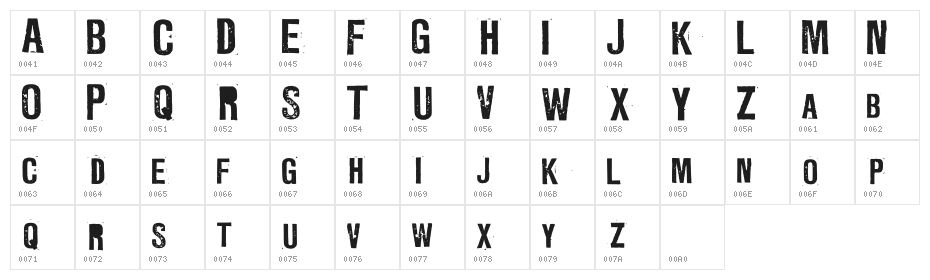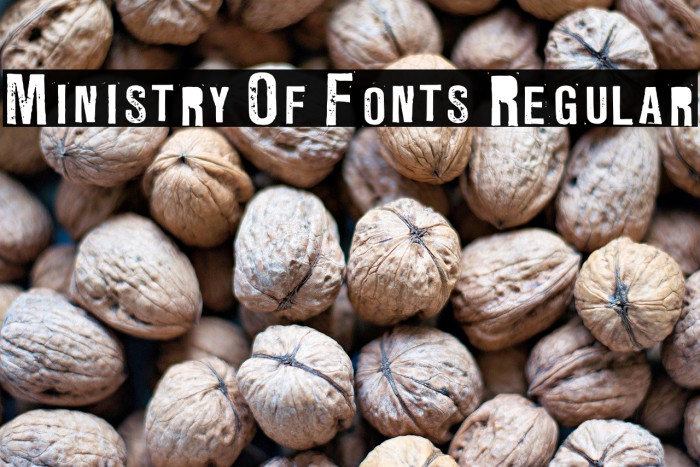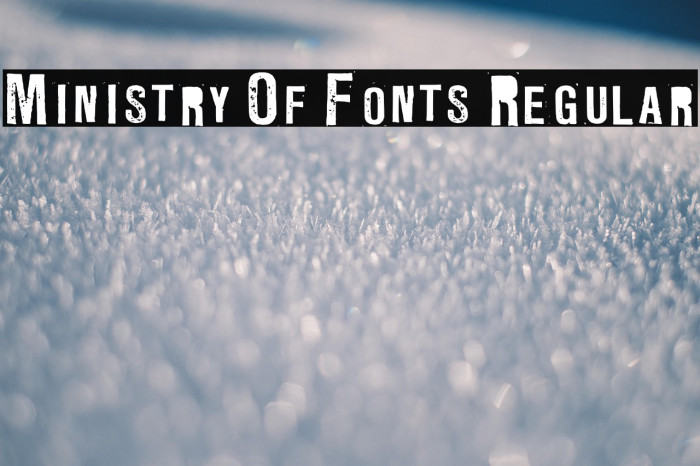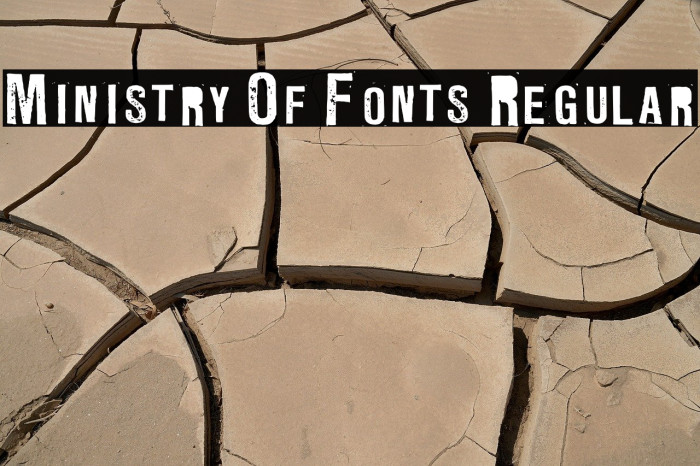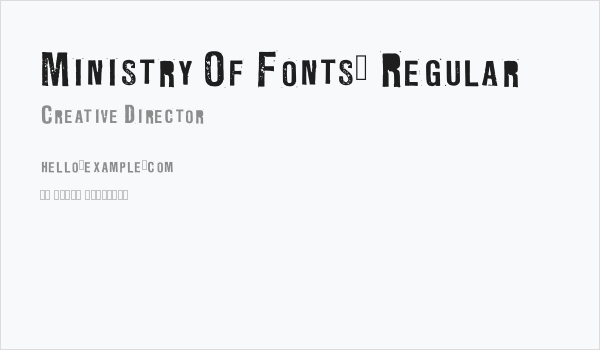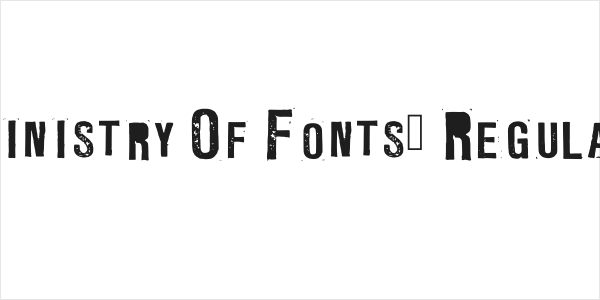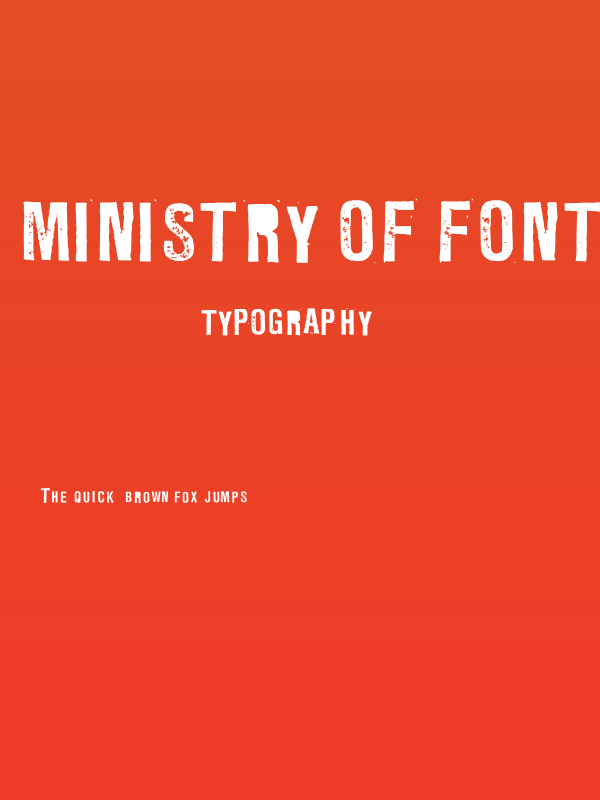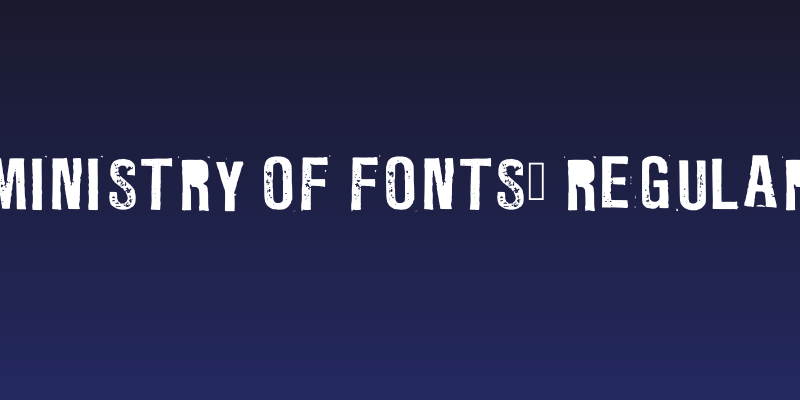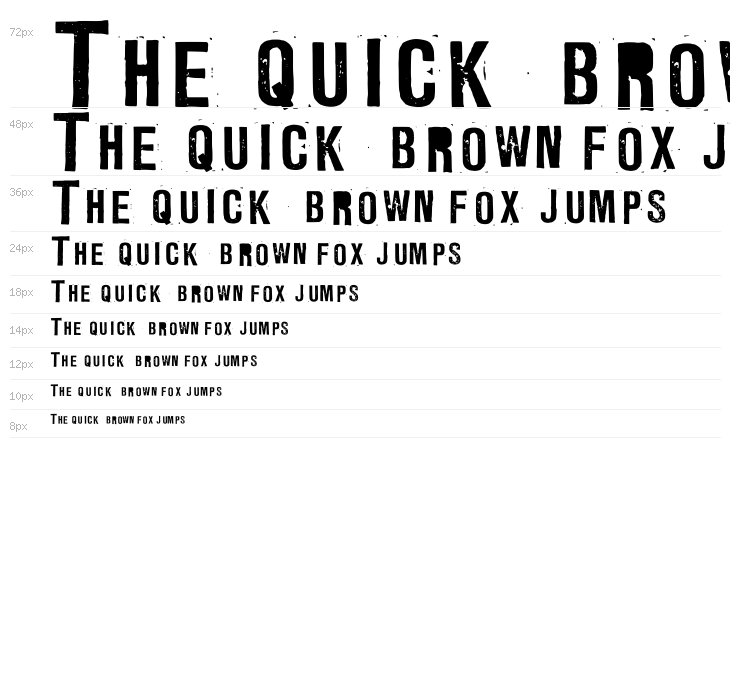
Ministry Of Fonts3 Regular Font
Ministry Of Fonts3 Regular Description
This font exudes a rugged, distressed aesthetic, reminiscent of vintage typewriter or old newspaper prints. The characters are bold and have a textured appearance, with irregular edges and a worn-out look, giving them a unique, handcrafted feel. The uppercase letters are prominent and impactful, while the lowercase letters maintain the same distressed style. The numbers and special characters follow suit, ensuring a cohesive design throughout. This font is perfect for projects that require a touch of nostalgia or a gritty, urban vibe.
| Proposed Projects | Ideal for posters, album covers, branding for vintage-themed products, or any design needing a rustic, edgy touch. |